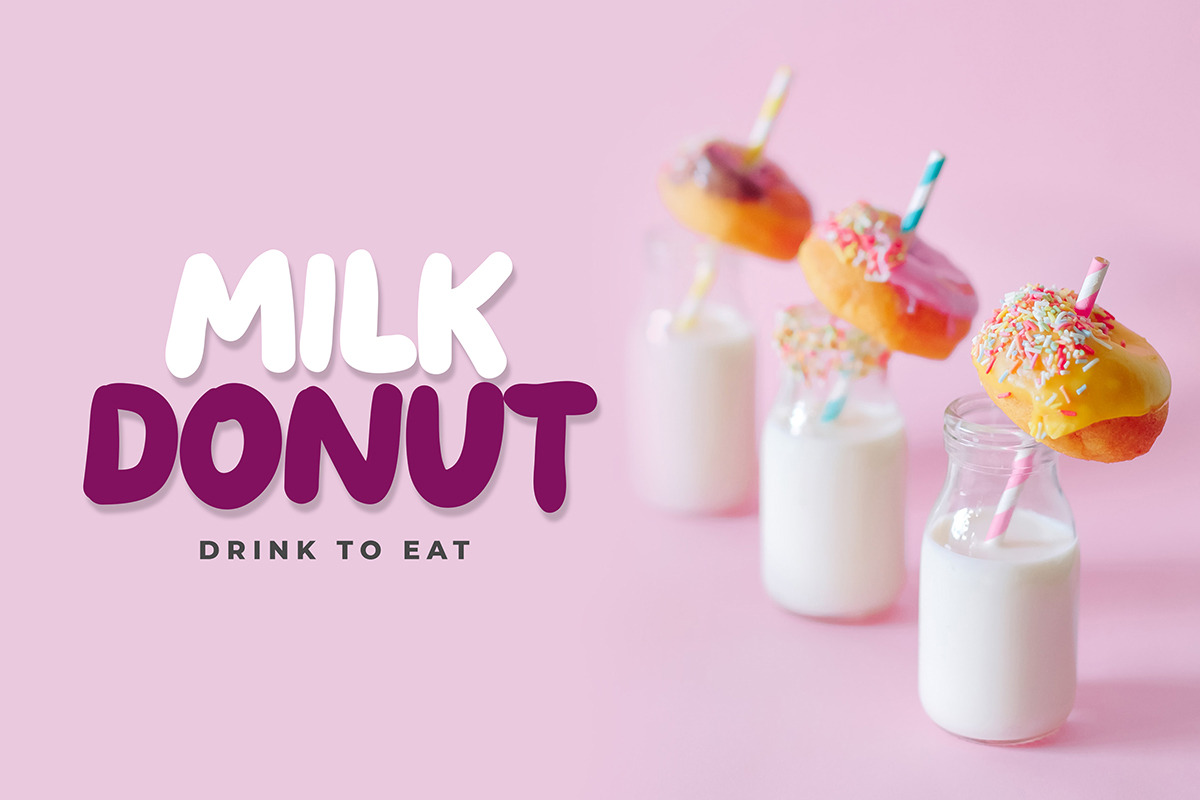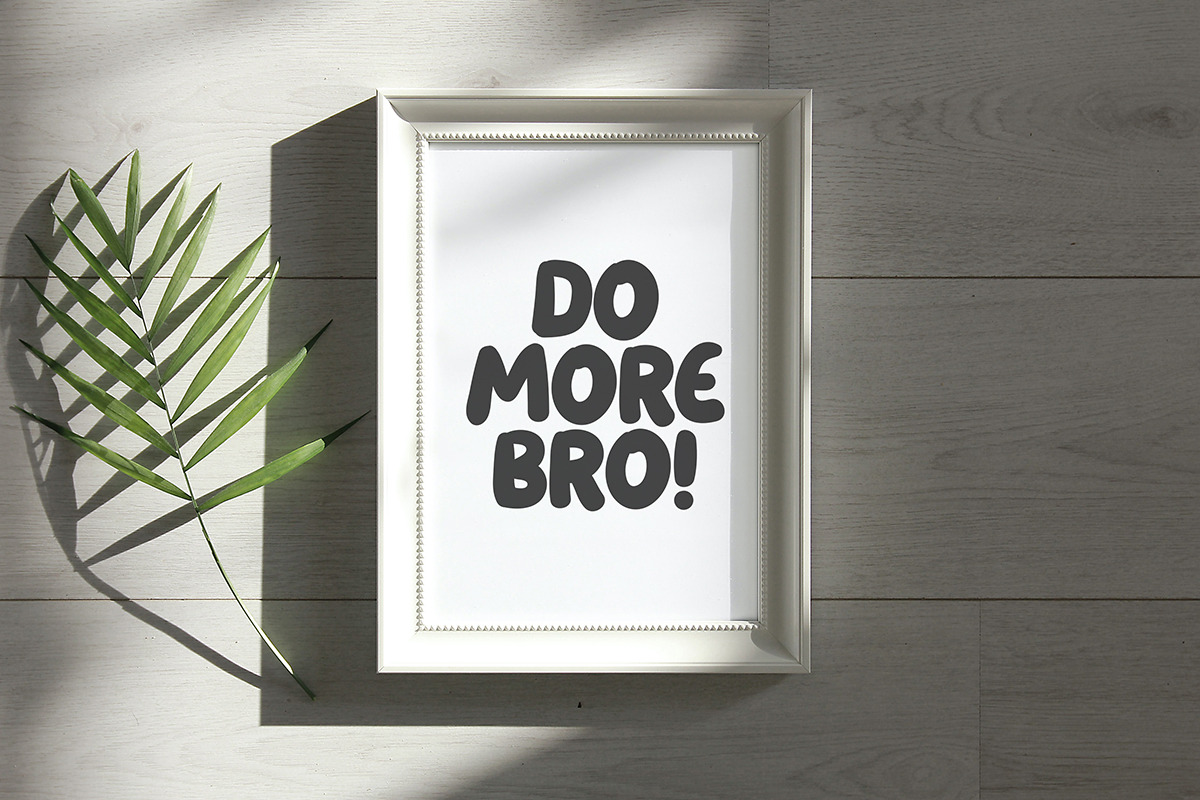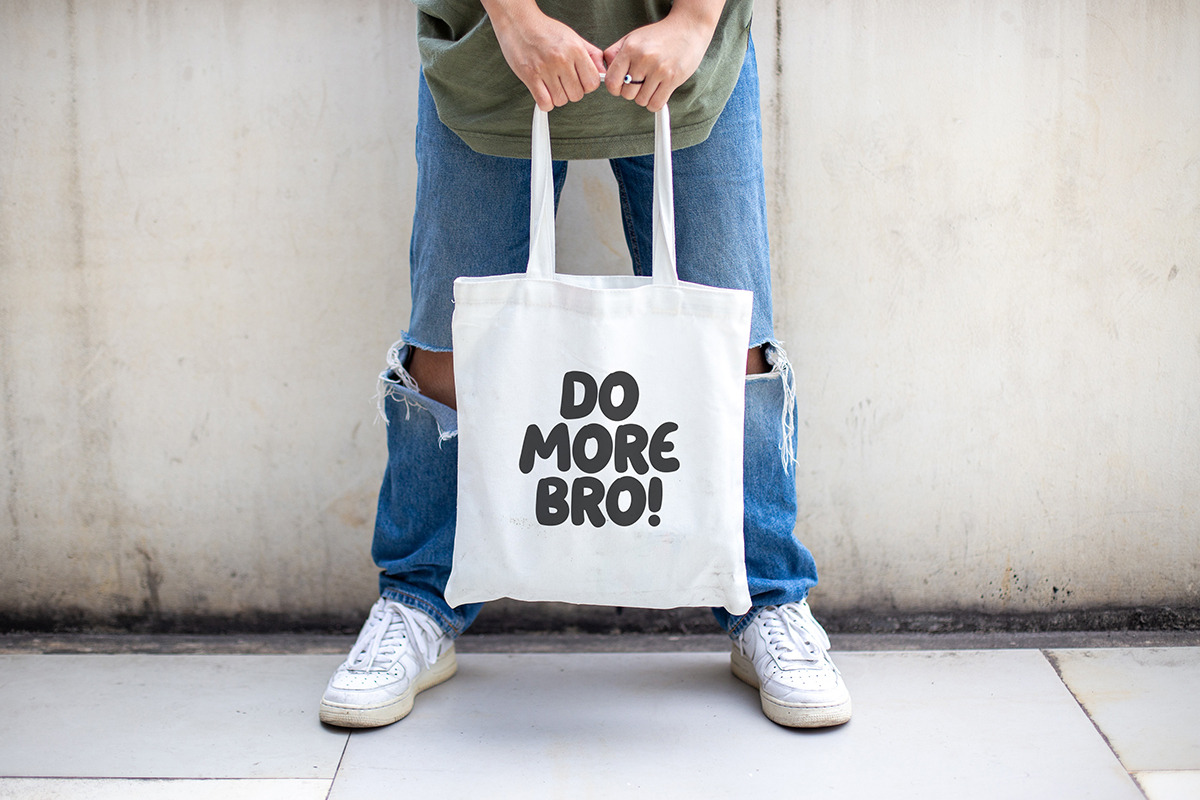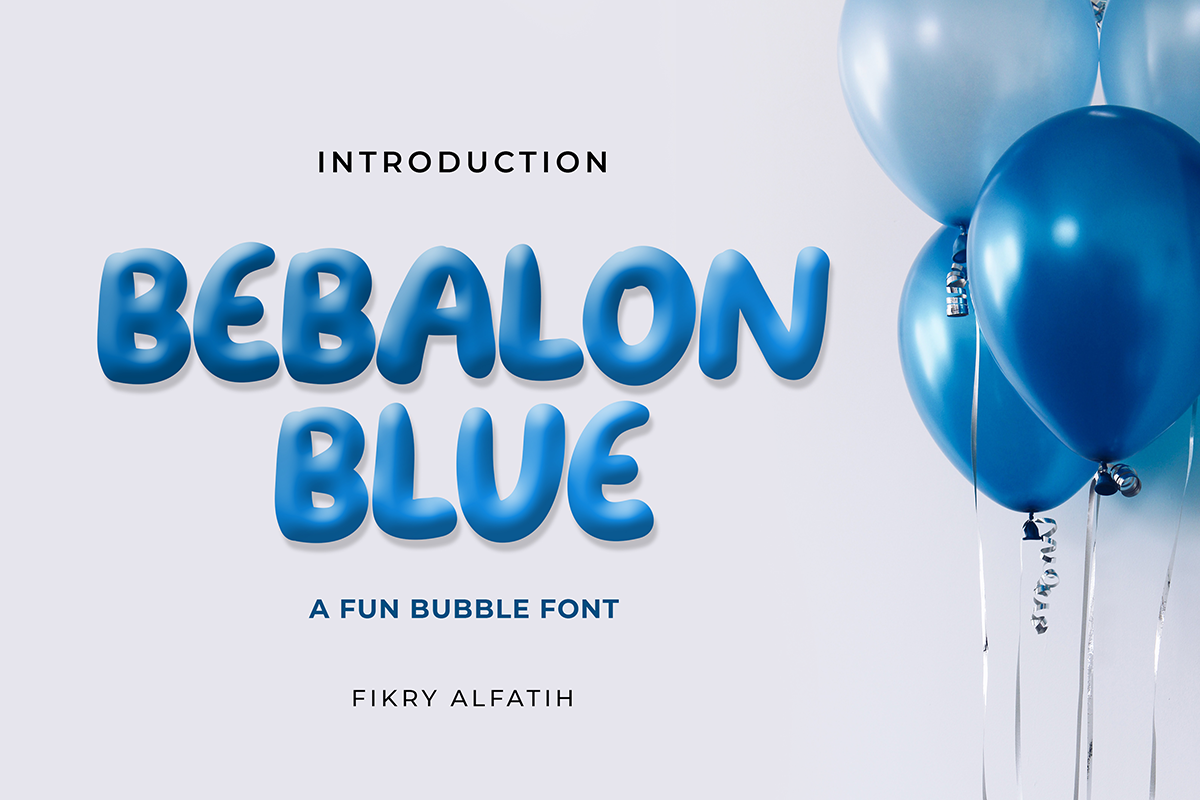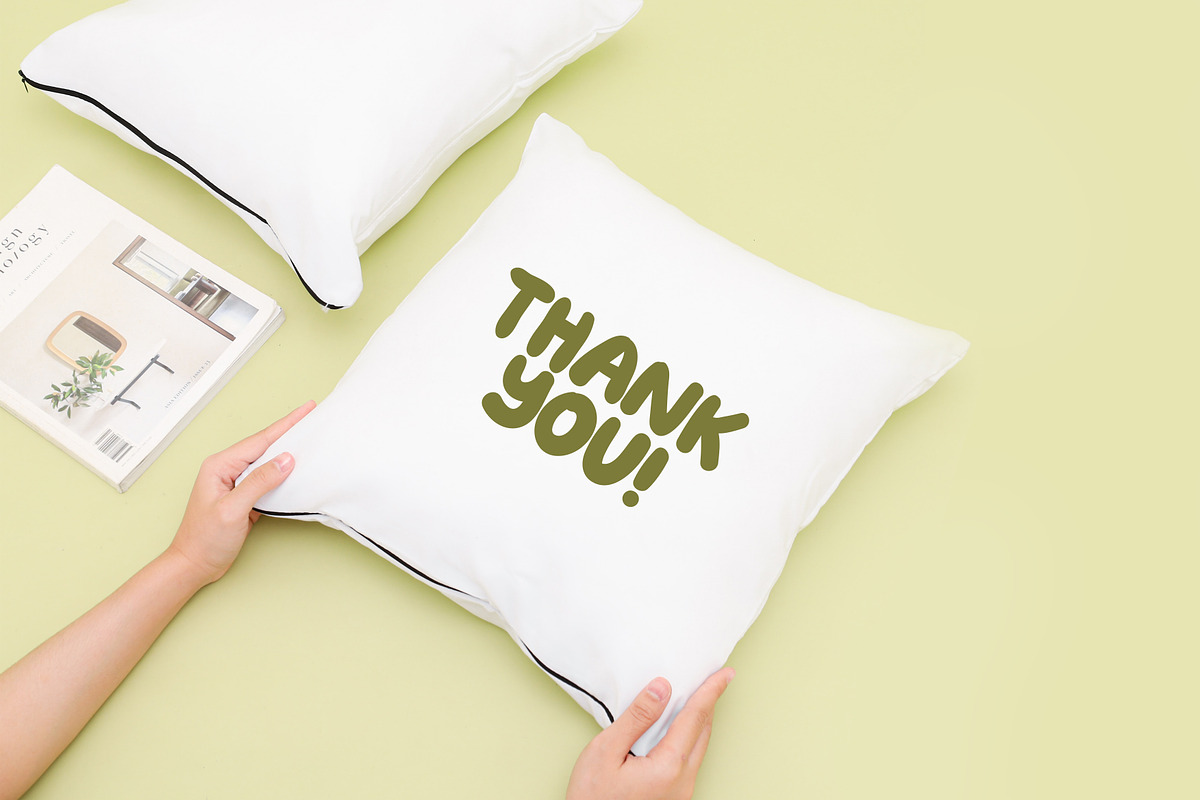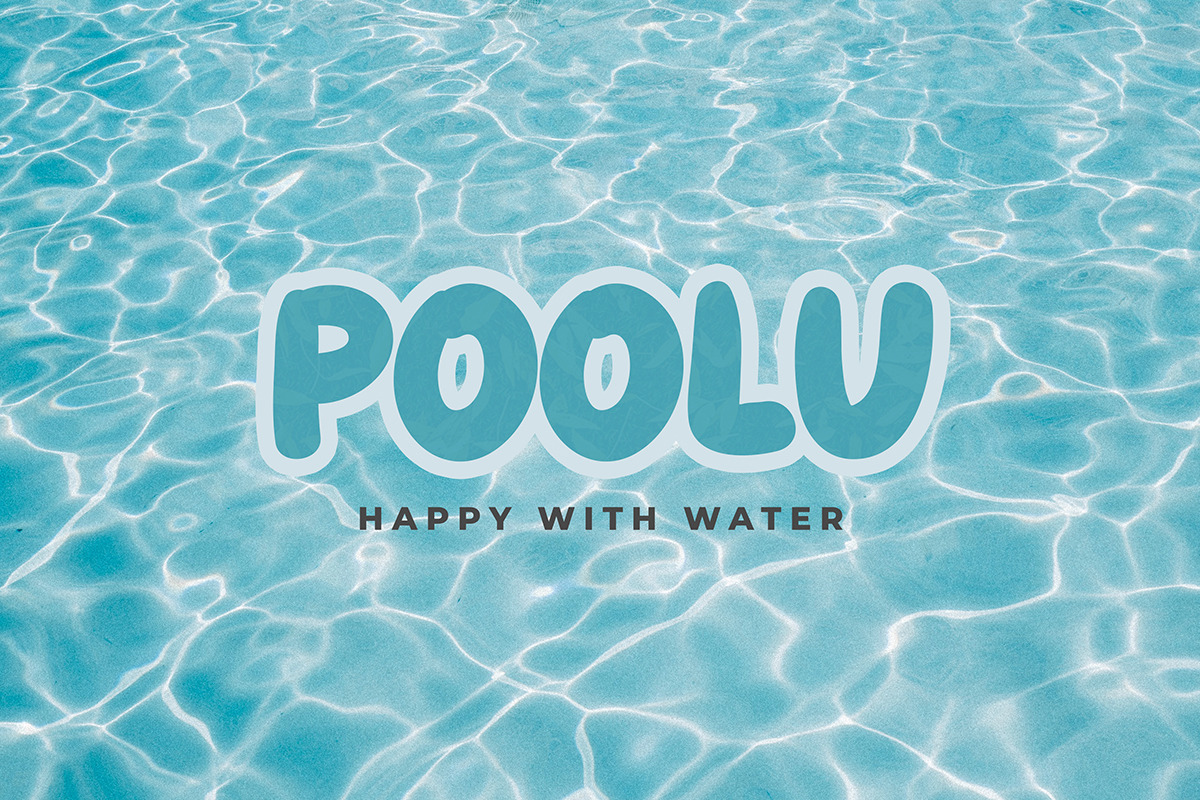
Bebalon Blue - Fun Bubble Font
Bebalon Blue is a fun bubble lettering display font with a youthful vibe. It is highly recommended for headers, event posters, album covers, Instagram promotions and quotes, art prints, logos, book covers, games, patterns, and more!